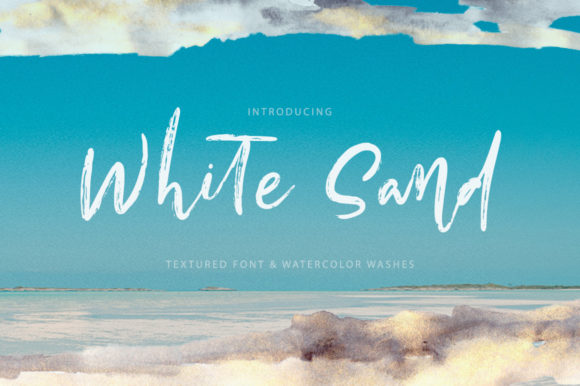
Immerse yourself in the world of White Sand Font, a script font family that carries a breath of fresh air with its beachy and dreamy vibe. Inspired by the warm embrace of summer and the positive energy of a seaside getaway, White Sand radiates a relaxed charm that will elevate your designs to new heights of creativity.
White Sand is the epitome of summer's easygoing spirit, a font that flows with the rhythm of a gentle breeze and captures the shimmering essence of sunlight on the ocean waves. It's a font that breathes life into your words, transforming them into artistic expressions of joy and freedom.
With its elegant curves and playful flourishes, White Sand has a captivating presence that draws the eye. Its delicate lines evoke a sense of artistry and craftsmanship, making it a perfect choice for projects that demand a touch of sophistication and flair. Its fluidity adds a touch of dynamism, creating a sense of movement and energy that captures attention and sparks imagination.
Step into the world of filmmaking and screenwriting with White Sand, a font that transports your words into the realm of cinematic storytelling. Its unique character lends itself perfectly to scripts, adding depth and emotion to each dialogue and narrative. White Sand brings your characters to life, allowing their voices to resonate with authenticity and impact.
Whether you're crafting a heartfelt love story, an epic adventure, or a thought-provoking documentary, White Sand provides the perfect backdrop for your cinematic vision. Its ability to convey emotions and create a sense of atmosphere makes it an invaluable tool for filmmakers and scriptwriters seeking to captivate their audience.
Beyond the realm of filmmaking, White Sand finds its home in a myriad of creative endeavors. Its versatility extends to branding, marketing, and social media, where its playful and beachy charm adds a touch of summery delight to any design. Use White Sand to create eye-catching logos, vibrant social media posts, or captivating marketing materials that leave a lasting impression.